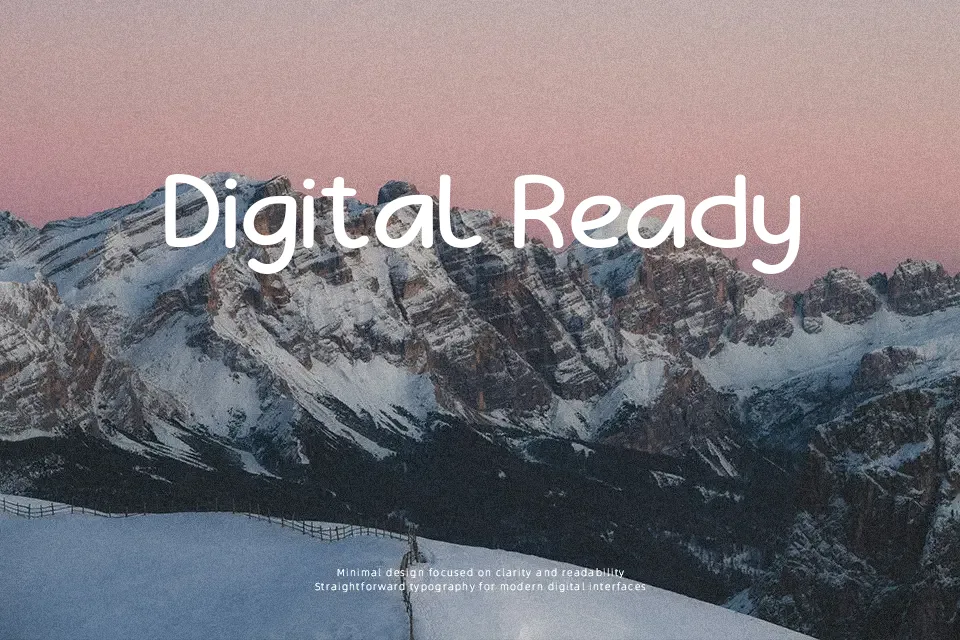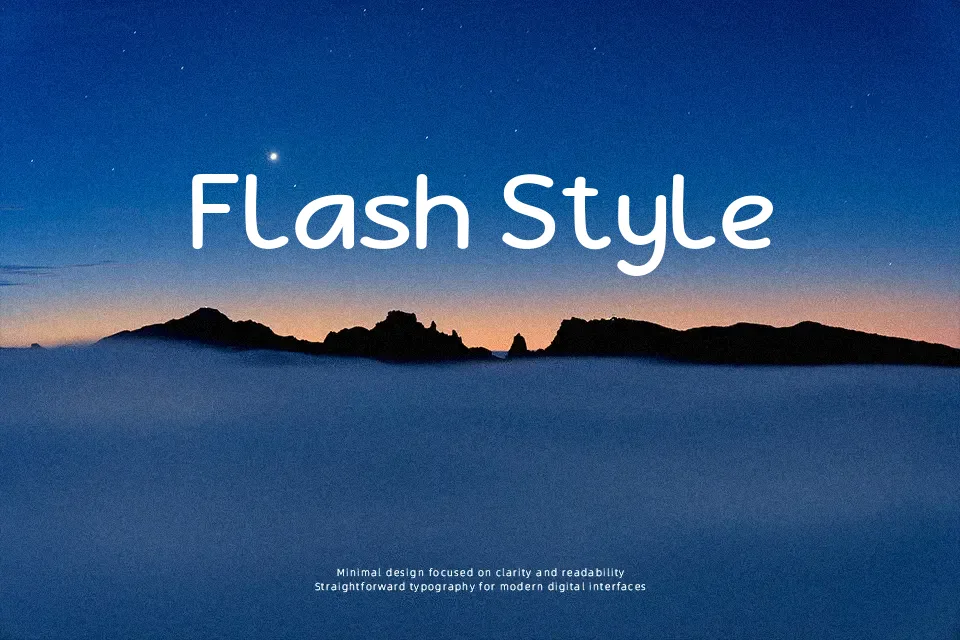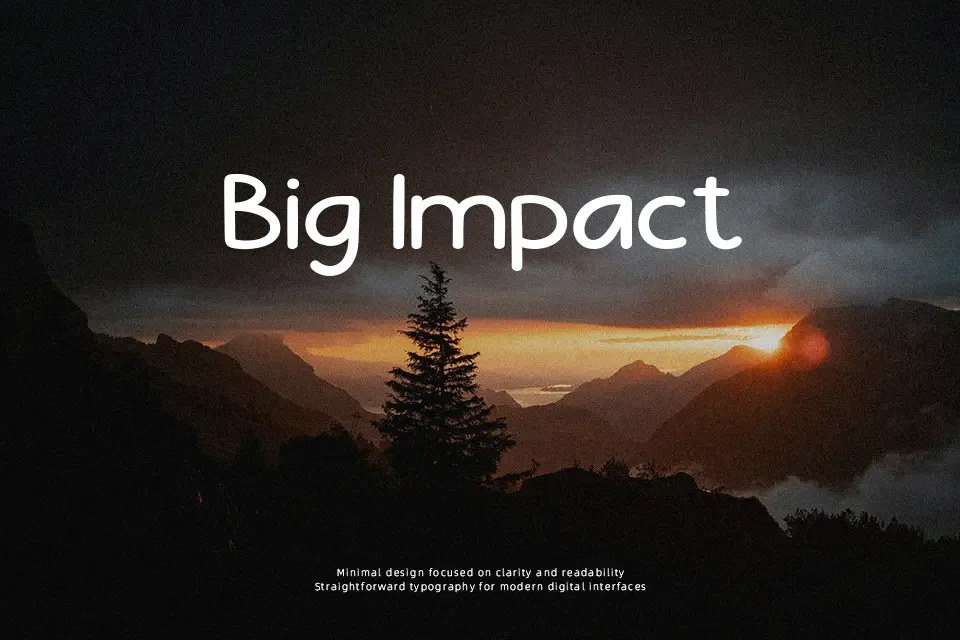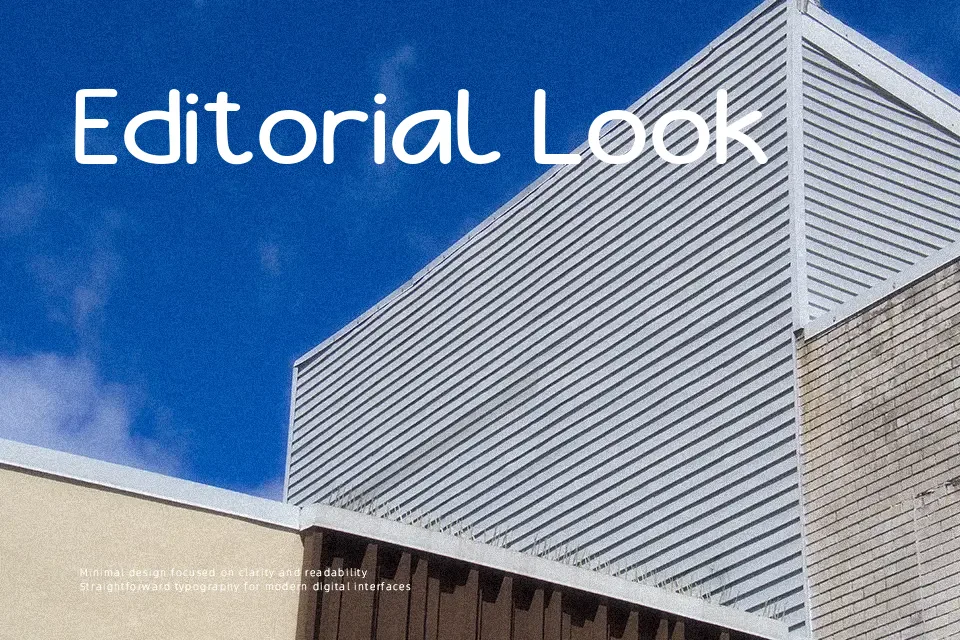
Cherile Font
Designed by Achmad Yani
Cherile Font presents a rounded display structure characterized by uniform monoline strokes, curved terminals, and open counters. Its balanced proportions and comfortable letter spacing provide clear character distinction across medium and large display settings. The clean geometry delivers an upbeat, friendly aesthetic that adapts smoothly to animated video graphics, toy packaging, and casual youth apparel. However, the consistent stroke weight and decorative softness reduce reading efficiency in dense editorial paragraphs and small mobile interface text. The typeface remains an effective choice for prominent headlines and short decorative phrases where strong visual charm and immediate accessibility take priority.
Best For: children book covers,animated title cards,toy packaging,casual merchandise branding
Not Ideal For: continuous editorial paragraphs,legal contracts,technical documentation,small interface labels
Perfect for headline, kids, and logo, with a creative and comic style.